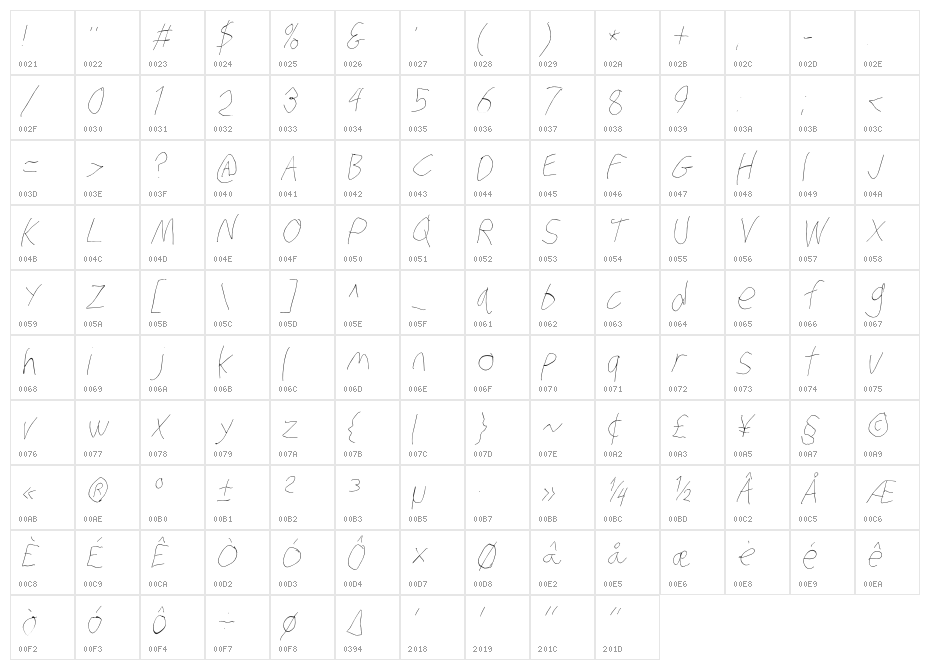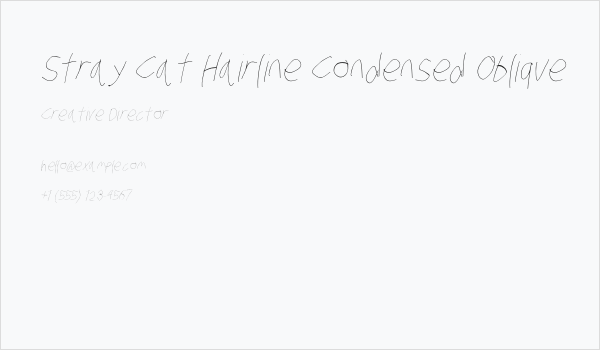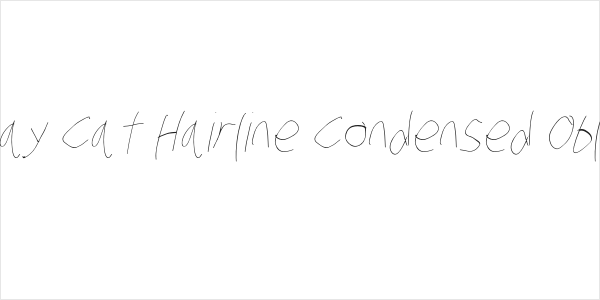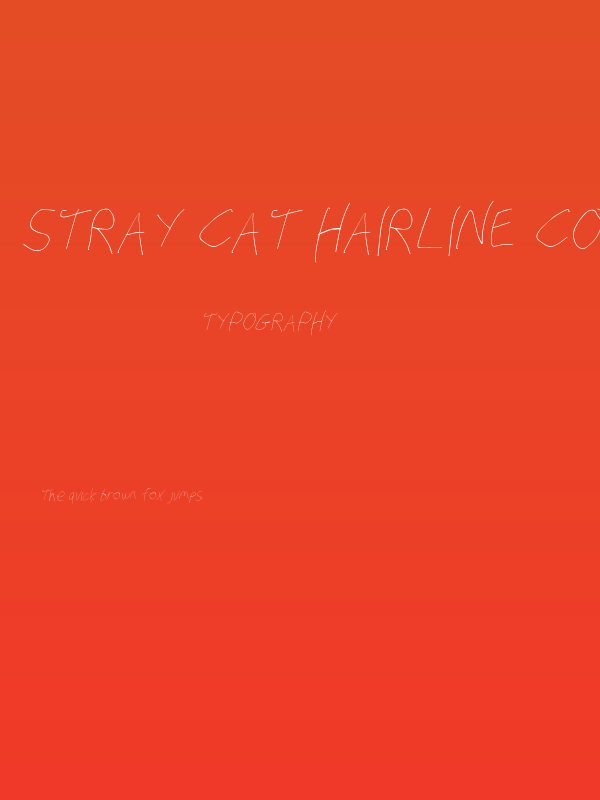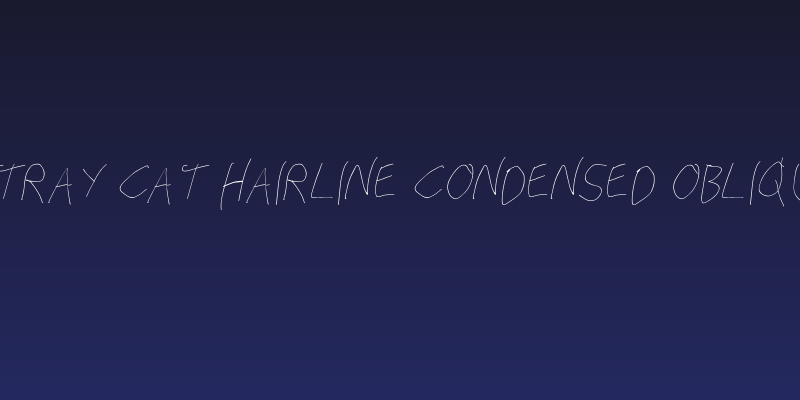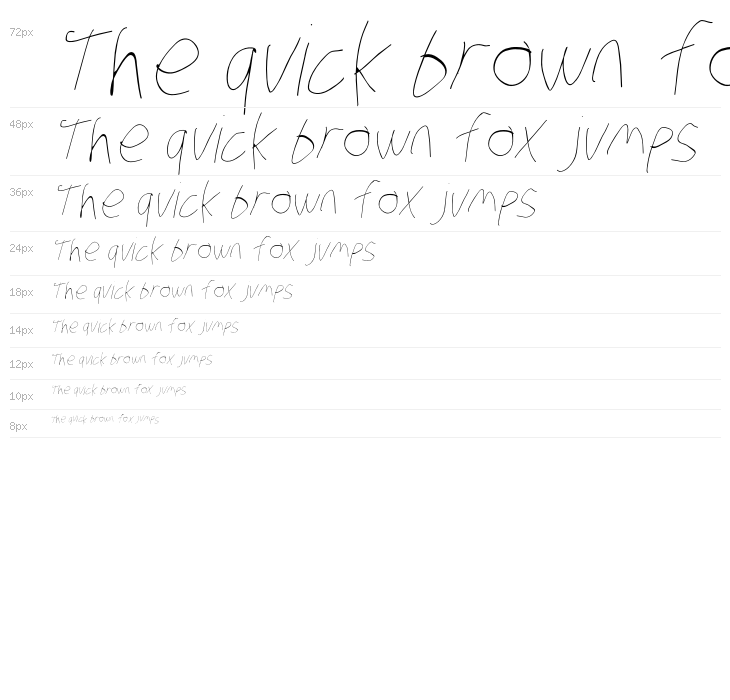
Stray Cat Hairline Condensed Oblique Font
Stray Cat Hairline Condensed Oblique Description
This font exhibits a playful and casual handwritten style, characterized by its thin, hairline strokes and condensed letterforms. The oblique angle adds a dynamic and informal touch, making it feel spontaneous and lively. Each character is uniquely crafted, giving the font a personal and organic feel, reminiscent of quick sketches or notes. The spacing between characters is relatively tight, enhancing the condensed appearance. Despite its light weight, the font maintains legibility and charm, suitable for creative and informal applications.
| Use Case | Logos, Informal text, Artistic projects |
| Proposed Projects | Ideal for creative projects such as greeting cards, personal notes, informal invitations, or artistic branding where a casual and personal touch is desired. |